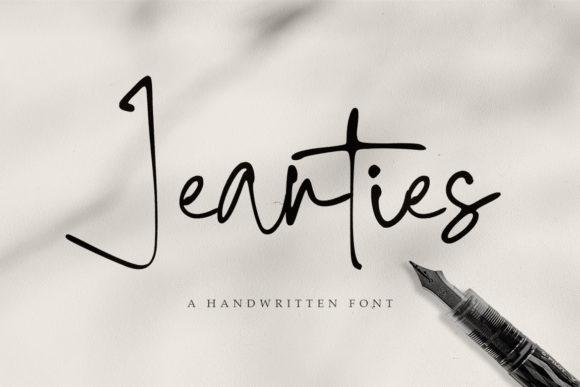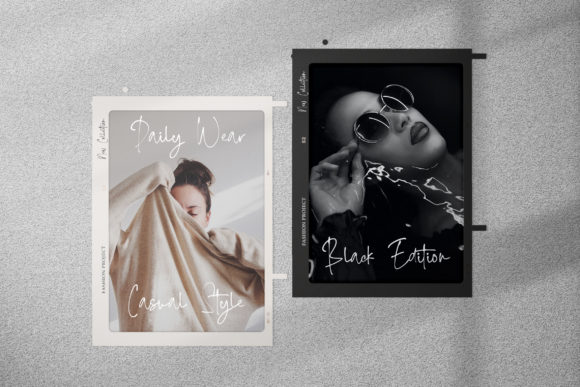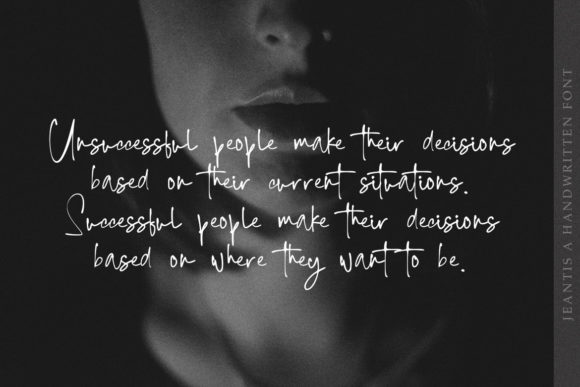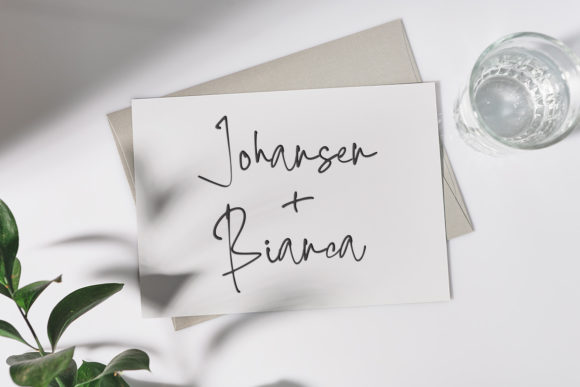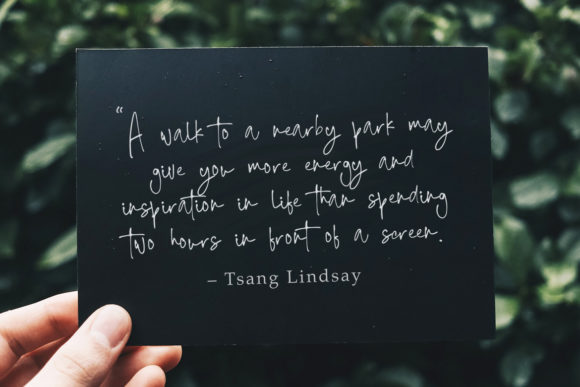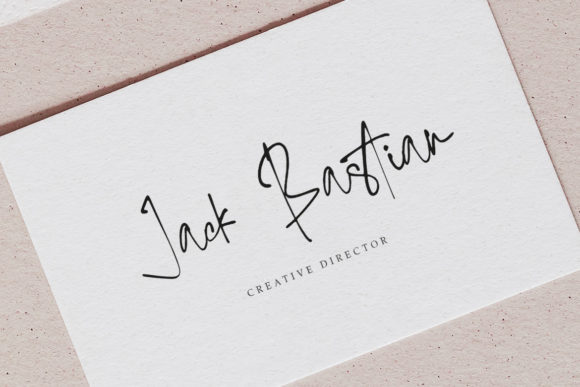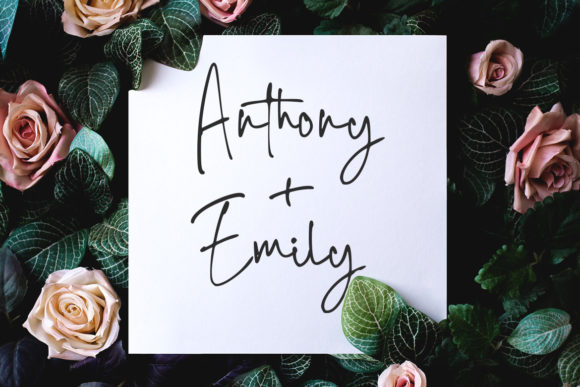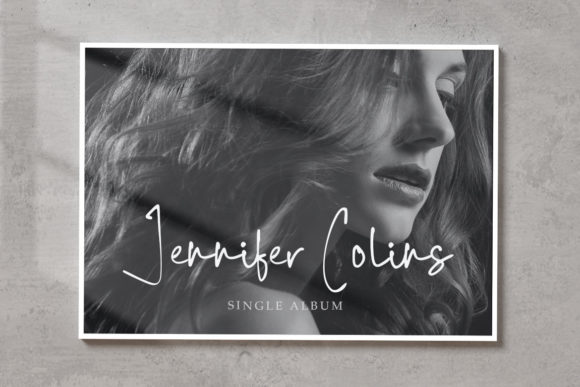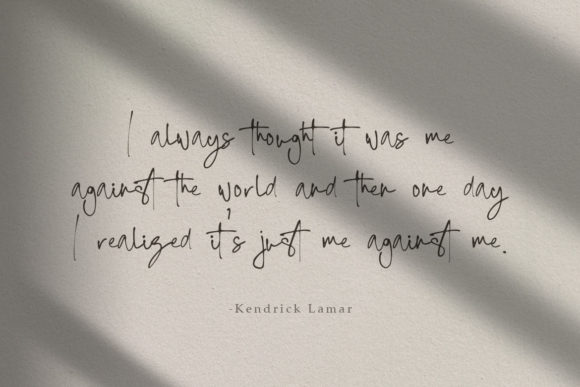
Jeanties Font
About Jeanties Font
Jeanties is a whimsical script font with a relaxed theme, featuring a lovely style. No matter the topic, this font will be an incredible asset to your fonts’ library, as it has the potential to elevate any creation.